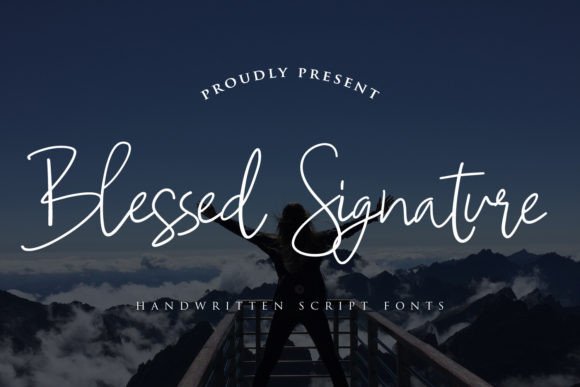
Blessed Signature Font: Elevate Your Designs with Elegant Handwriting
In the world of digital design, typography plays a crucial role in conveying messages, expressing emotions, and creating visual identities. Among the numerous font styles available, handwritten script fonts have gained immense popularity for their unique, personal touch. One such font that has caught the attention of designers and businesses alike is the Blessed Signature Font. In this article, we’ll explore the features, benefits, and uses of Blessed Signature – a stunning Handwritten Script font that can elevate your designs to new heights.
What is Blessed Signature Font?
Blessed Signature is a beautiful Handwritten Script font designed to add a touch of elegance and sophistication to various design projects. Its unique, flowing script style makes it perfect for creating visually appealing text that resonates with audiences. Whether you’re working on branding, promotional ads, quote designs, merchandise, social media, or any other project, Blessed Signature Font is an excellent choice.
Key Features of Blessed Signature Font
- Handwritten Script Style: Blessed Signature boasts a distinctive handwritten script style that exudes warmth, personality, and style.
- Versatility: This font is suitable for a wide range of design projects, from branding and advertising to social media and merchandise.
- Elegant and Sophisticated: Blessed Signature adds a touch of elegance and sophistication to any design, making it perfect for high-end brands and luxury products.
- Easy to Read: Despite its ornate style, Blessed Signature is easy to read, ensuring that your message is conveyed clearly and effectively.
Benefits of Using Blessed Signature Font
Using Blessed Signature Font in your designs can have numerous benefits. Here are a few:
- Stand Out from the Crowd: With its unique and elegant style, Blessed Signature Font can help your designs stand out in a crowded market.
- Emotional Connection: The handwritten script style of Blessed Signature can create an emotional connection with your audience, making your message more relatable and memorable.
- Professionalism: Blessed Signature Font can add a touch of professionalism to your designs, making them suitable for high-end brands and businesses.
- Flexibility: This font can be used in various design projects, from digital to print, making it a versatile addition to your font library.
Uses of Blessed Signature Font
Blessed Signature Font is suitable for a wide range of design projects, including:
- Branding: Use Blessed Signature Font to create a unique and memorable brand identity that reflects your business values and personality.
- Promotional Ads: Add a touch of elegance and sophistication to your promotional ads with Blessed Signature Font.
- Quote Design: Create inspiring and visually appealing quote designs with Blessed Signature Font.
- Merchandise: Use Blessed Signature Font to create beautiful and unique merchandise, such as t-shirts, mugs, and tote bags.
- Social Media: Elevate your social media designs with Blessed Signature Font, making your posts and stories more engaging and memorable.
Tips for Using Blessed Signature Font
Here are a few tips to help you get the most out of Blessed Signature Font:
- Use it Sparingly: While Blessed Signature Font is beautiful, it’s best to use it sparingly to avoid overwhelming your design.
- Pair it with Other Fonts: Experiment with pairing Blessed Signature Font with other fonts to create a unique and visually appealing typography.
- Adjust the Size and Color: Adjust the size and color of Blessed Signature Font to suit your design needs and ensure it stands out.
Blessed Signature Font is a stunning Handwritten Script font that can elevate your designs to new heights. Its unique, elegant style makes it perfect for various design projects, from branding and advertising to social media and merchandise. With its versatility, emotional connection, and professionalism, Blessed Signature Font is an excellent addition to any designer’s font library. So, why not give it a try and take your designs to the next level?